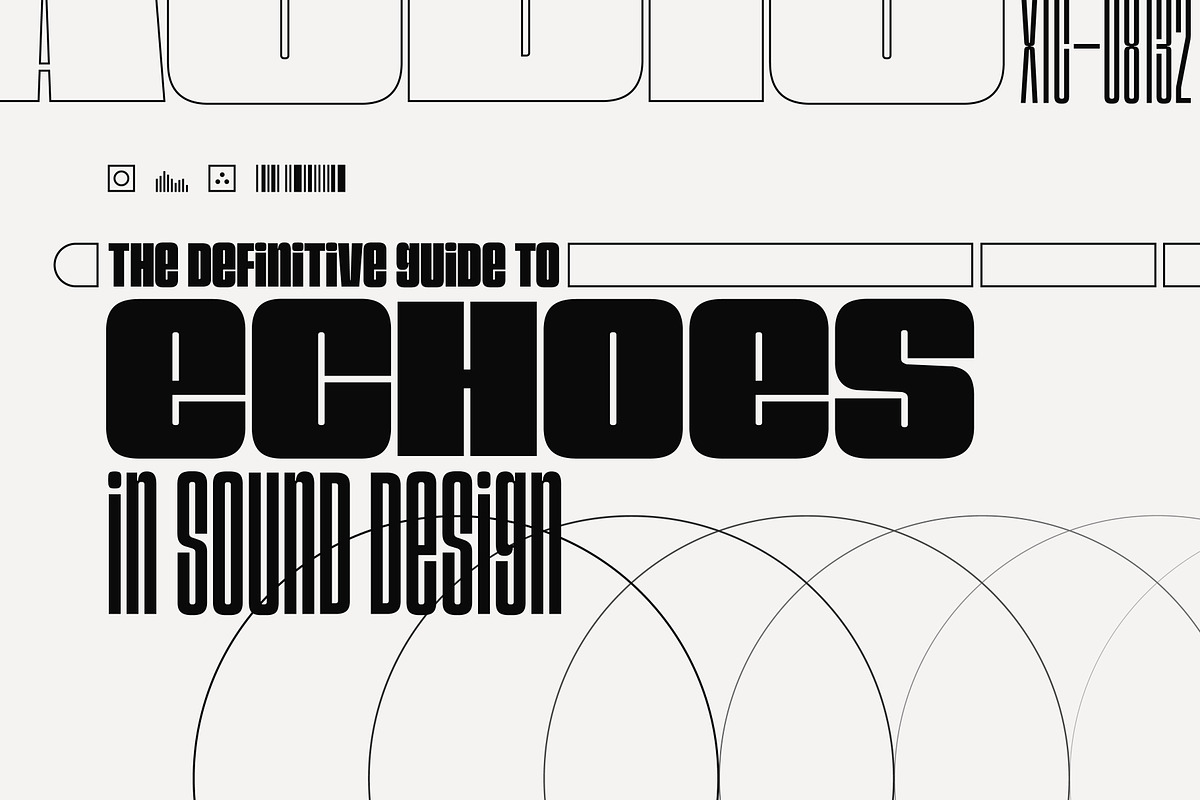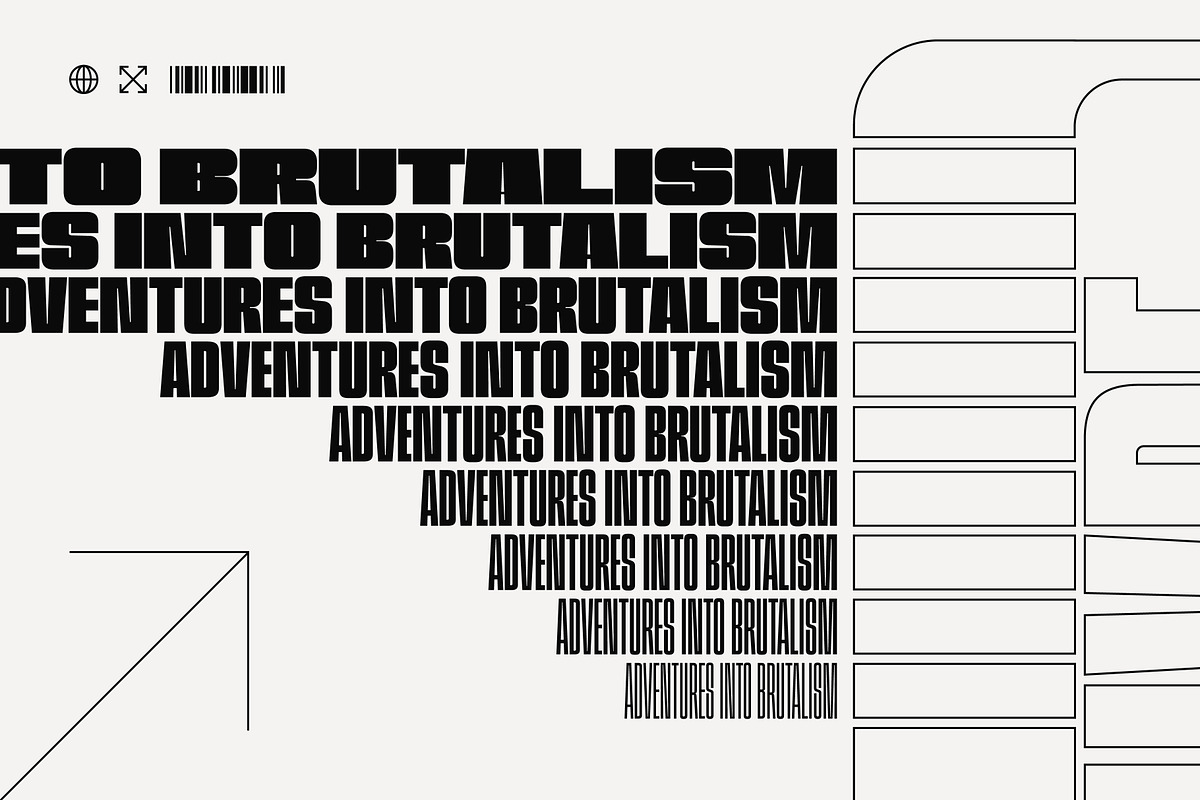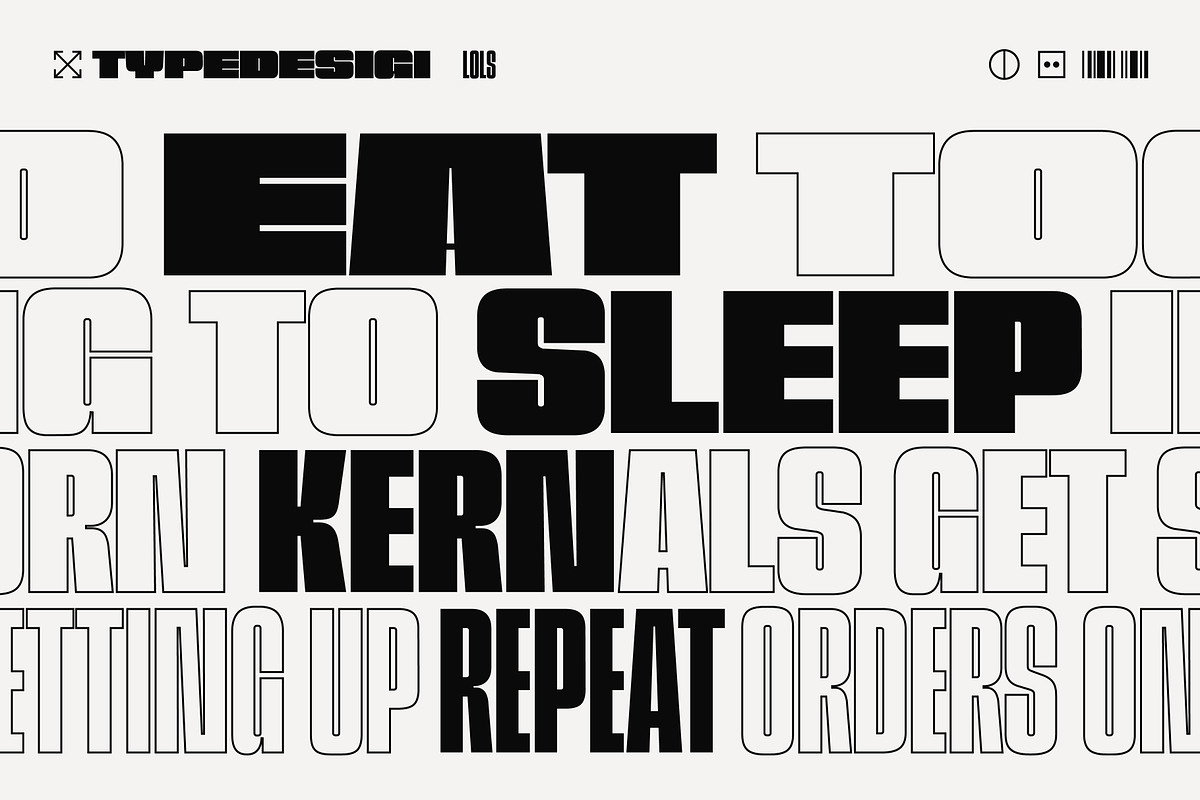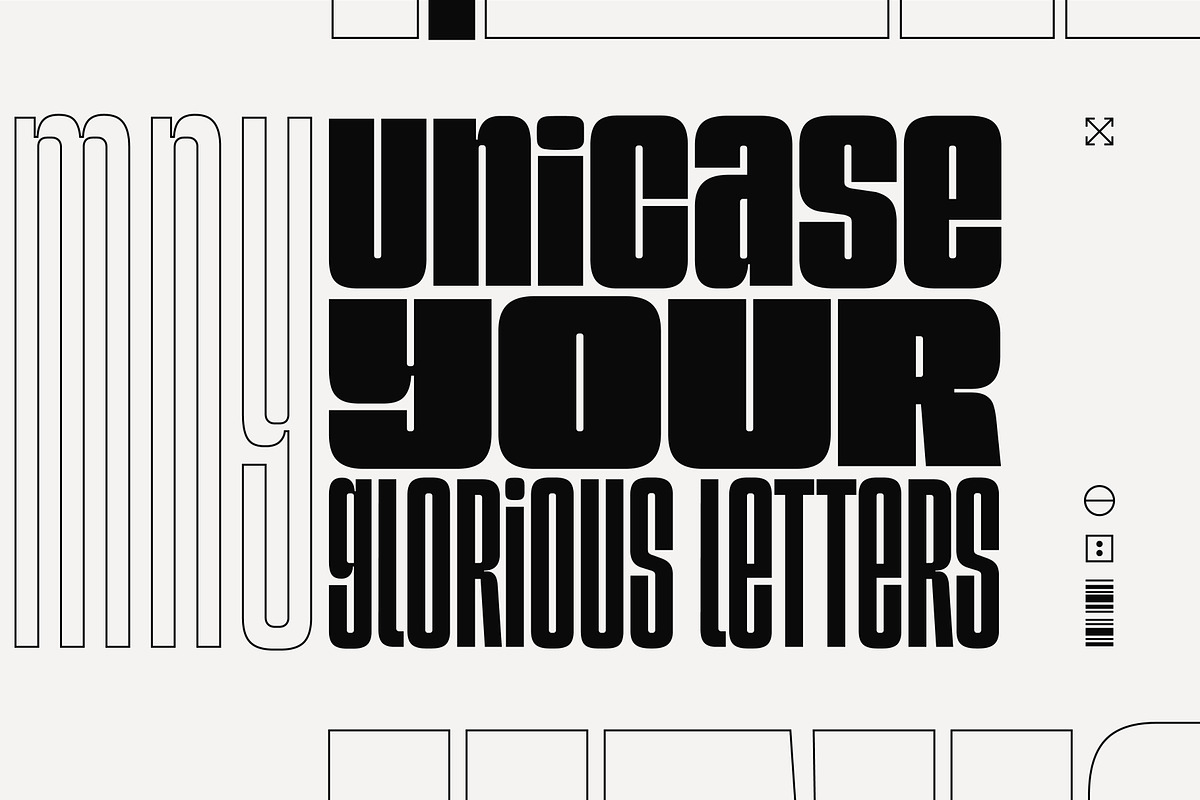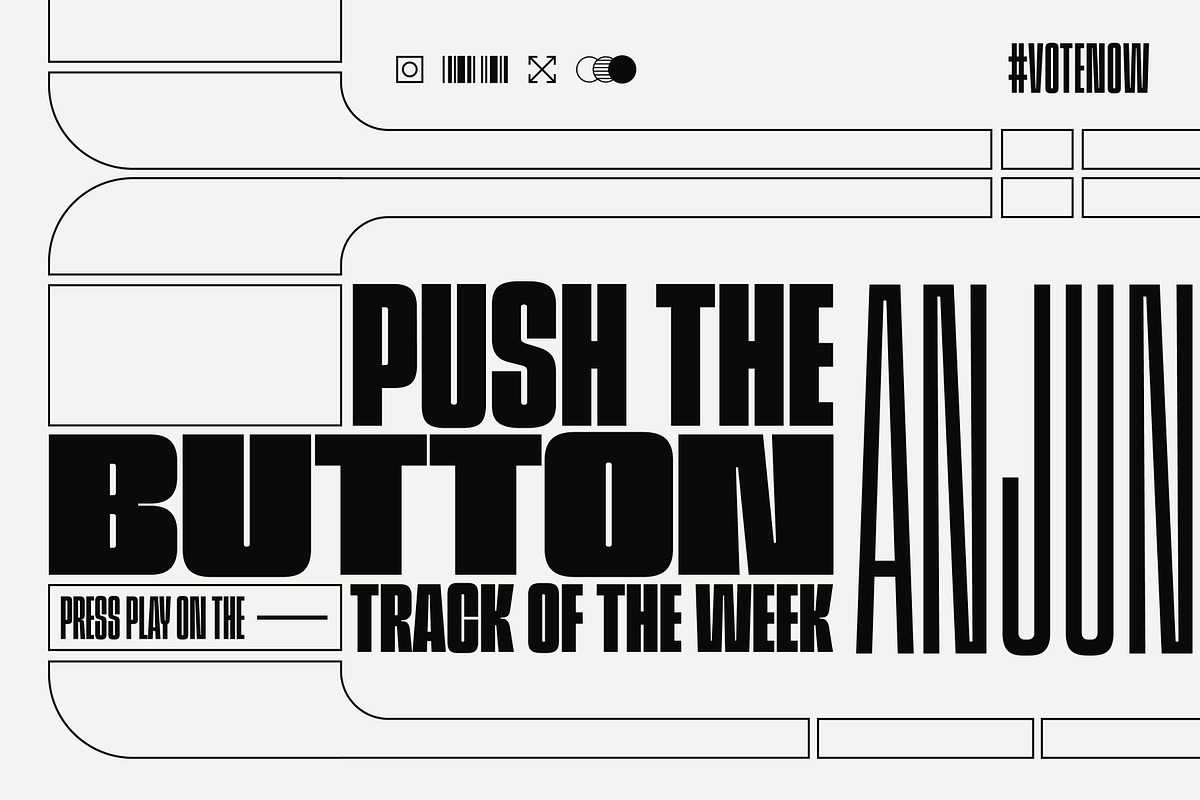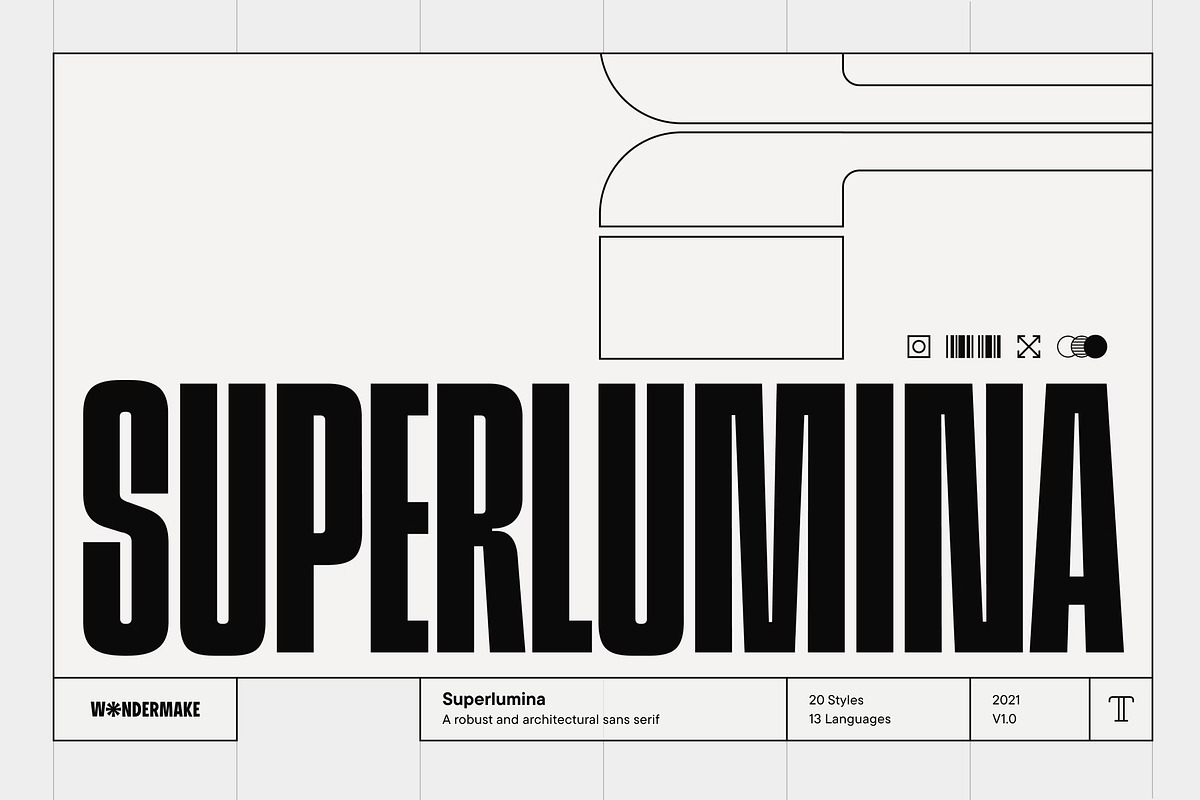
Superlumina
Superlumina — Whether you’re designing for sci-fi or street-wear, working on your next EDM release or just looking for a new face for setting movie poster credits… Superlumina offers some personality in an otherwise fairly uniform type classification. Its unicase set of ‘miniscules’ help soften the feel a little further, where a fully fledged set of lowercase letters may otherwise break the rhythm of the designs density. The result is an interesting texture of lowercase curves and upper case corners that clearly deviates from fully set capitals in the case of most words.
- 9 weights and matching italics (18 styles total)
Open type Features
- Custom and Arbitrary Fractions
- Slashed Zero
- Ordinals
- Contextual Alternates
- Discretionary Ligatures
- Case Sensitive Forms